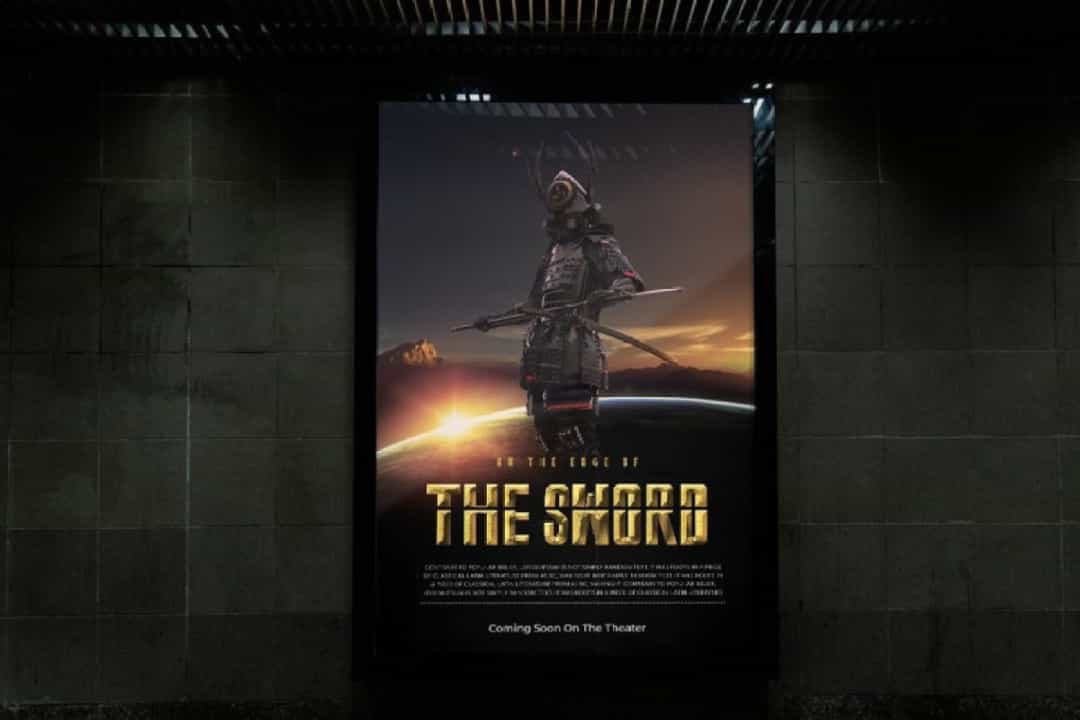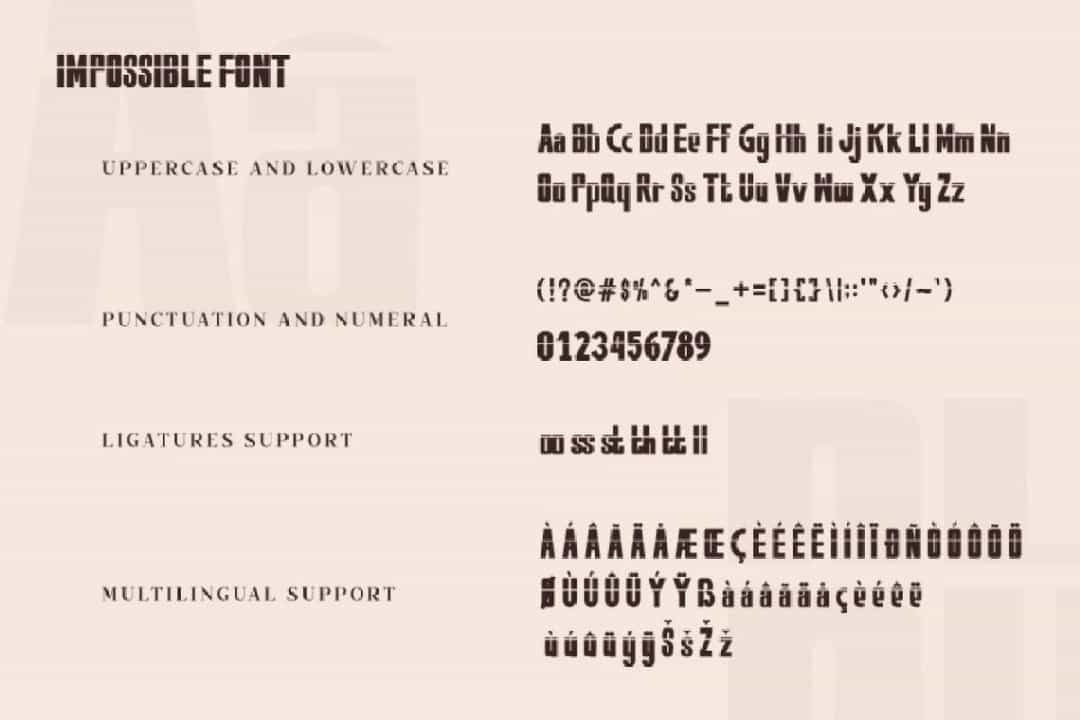
Discover Impossible Font, part of the Sans Serif Display Decorative collection—a versatile and unique font perfect for adding a personal touch to your projects. Download it for free and enjoy crafting designs with style, from invitations to social media posts. This font is available exclusively for personal use, giving you the freedom to create without limits. Unlock your creativity with Impossible Font today!
Impossible is an eye-catching sans-serif show font ideal for movie titles that is bold and striking, offering flexible yet friendly styling suitable for movie titles, logos or headlines. PUA encoded to enable easy access to all its amazing characters and ligatures!